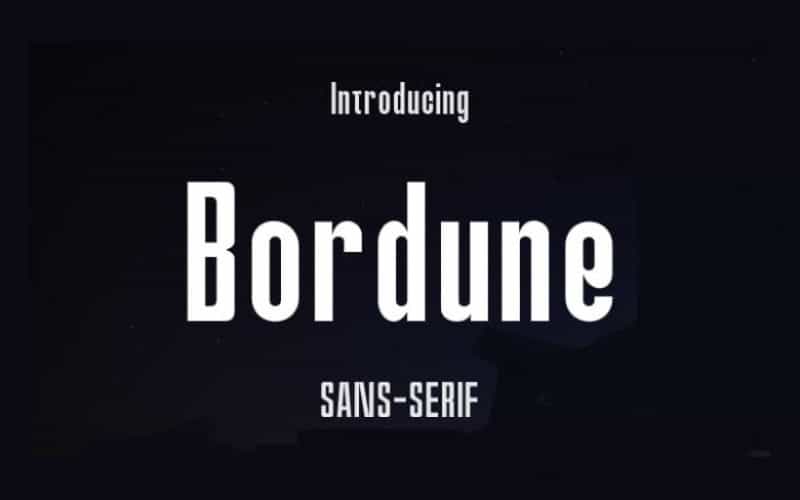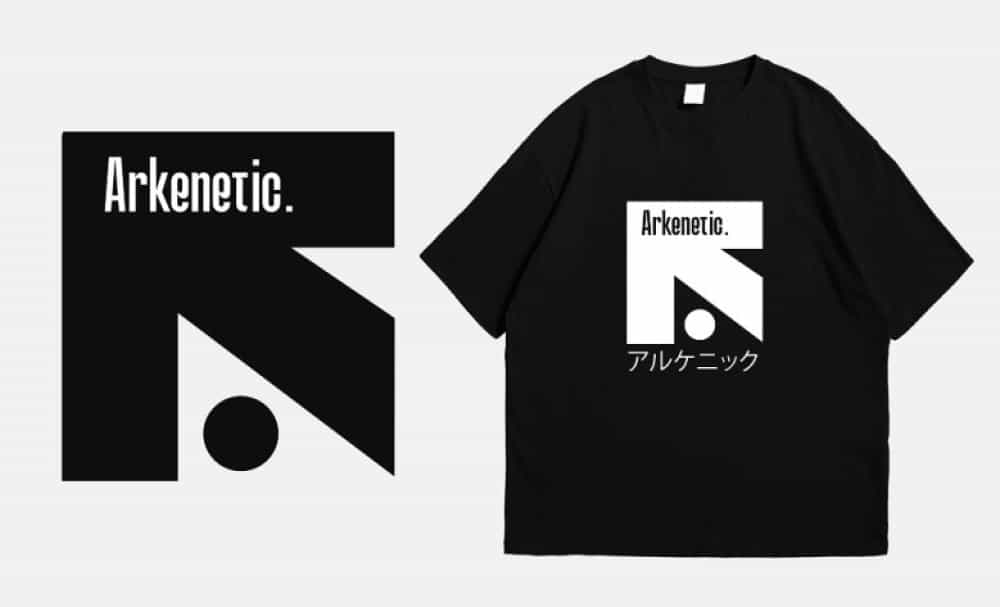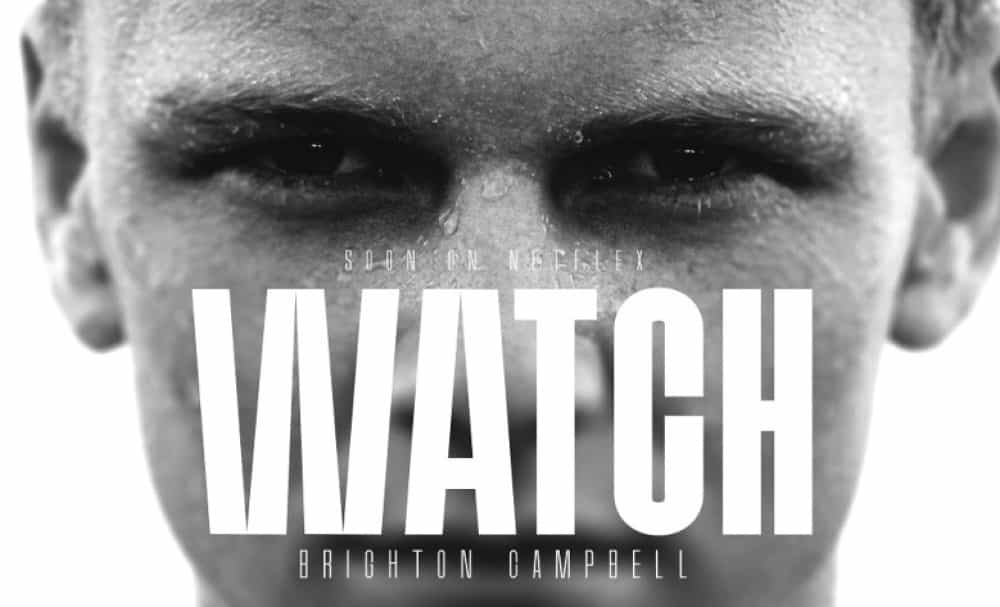
Bordune is a sans serif font of the condensed style that embodies the concepts of vigor and sophistication in a perfect blend. This modern font is a sans serif typeface which has clear and strong contrast in the thickness of the lines and supports many languages for better utilization. Bordune has assembled a vast library of more than 400 finely designed glyphs which will suit almost every design project.